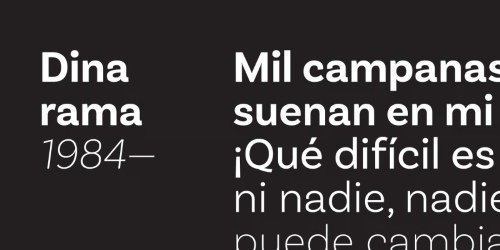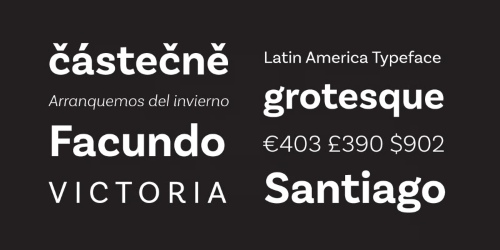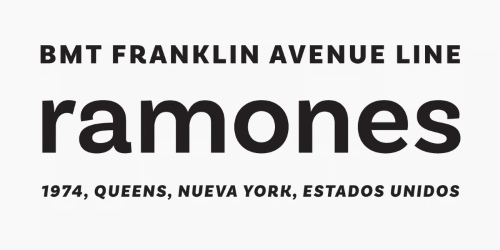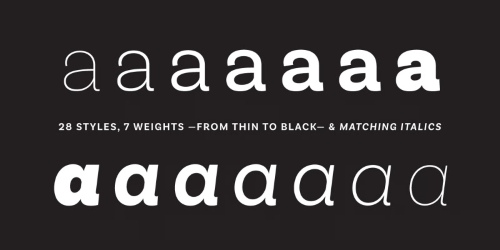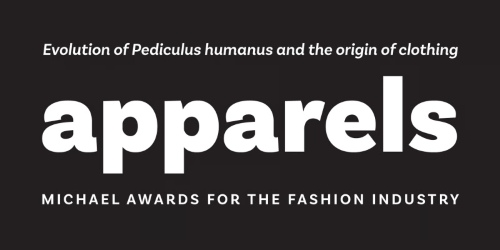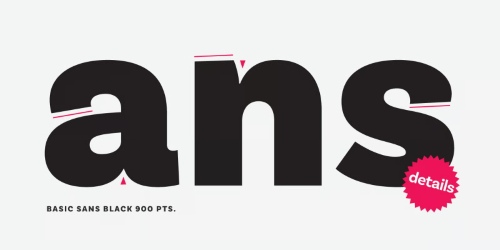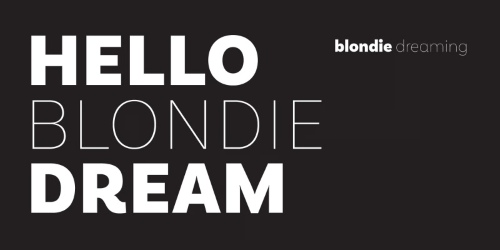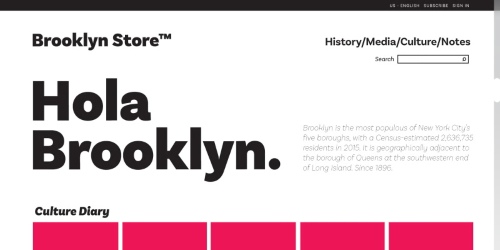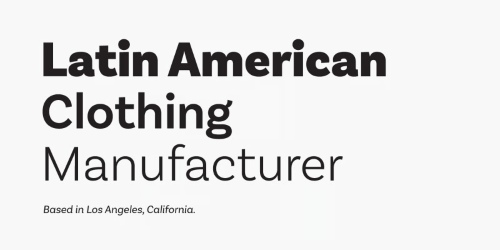
Basic Sans Narrow - 28 Styles Font Family
- Basic Sans: A necessary sans. Designed by Daniel Hernández A family of Grotesque features with a functional, neutral and seeming clean style that looks to keep a neutral (or basic) appearance on paper, but including lots of details that give it a unique personality. Basic Sans is a sans-serif typeface well-suited for publishing projects, medium-sized text, branding, posters, headlines and more! This font family comes in 7 weights—ranging from Thin to Black—plus matching italics and has a set of 416 characters that support 206 different languages.